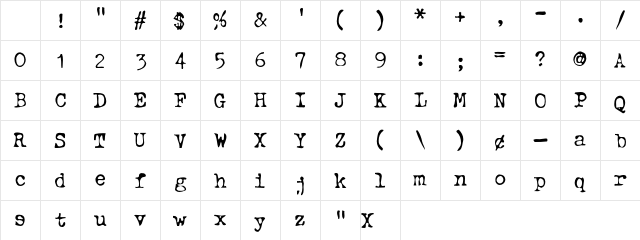
Complete Typewriter Oldstyle glyph index. Displaying only characters natively supported by Typewriter Oldstyle font.
Typewriter uses fixed-width spacing throughout, giving it the structured, systematic character associated with coding environments and technical documentation.
Pro Tip: Use Typewriter with slightly increased line-height for extended reading - fixed-width spacing can feel dense in longer passages without extra breathing room.